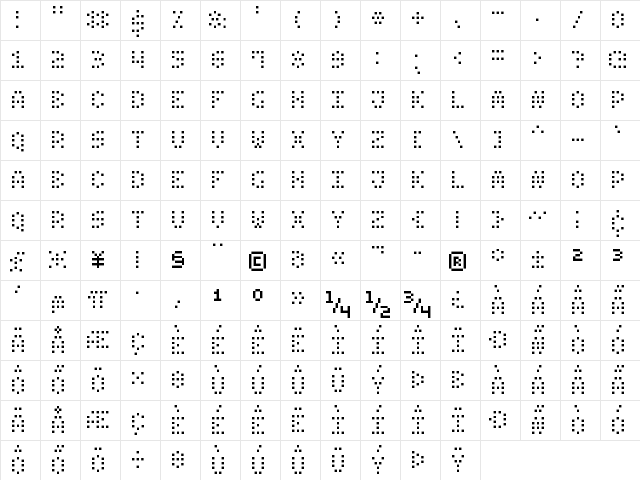
Complete Small Dot Digital-7 Regular glyph index. Displaying only characters natively supported by Small Dot Digital-7 Regular font.
Small Dot Digital-7 has a distinctly futuristic character, with geometric precision and clean angles that feel at home in technology, gaming, and sci-fi contexts.
Pro Tip: Try Small Dot Digital-7 with generous letter-spacing in UI labels and navigation - the geometric forms benefit from room to breathe.